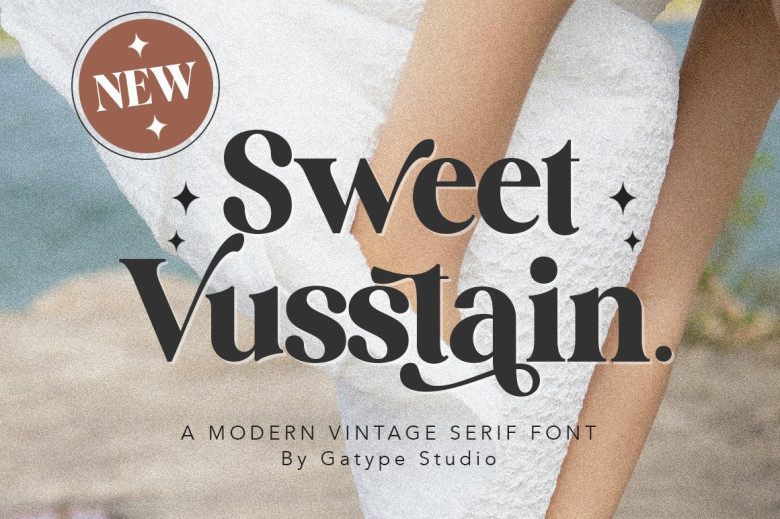
Sweet Vusstain Font
Sweet Vusstain is an antique serif typeface with an impressively modern, stylish, chic, and fun style that’s effortlessly adaptable. This font looks beautiful regardless of screen size and text size while being easy to read at any size.
Additionally, its variety of options and bindings allows users to create astonishing designs while its lively yet friendly aesthetic will add vibrancy and life to your work! Additionally, being PUA encoded means you have easy access to all characters and sweeps as well as additional features!
Sweet Vusstain Serif Font